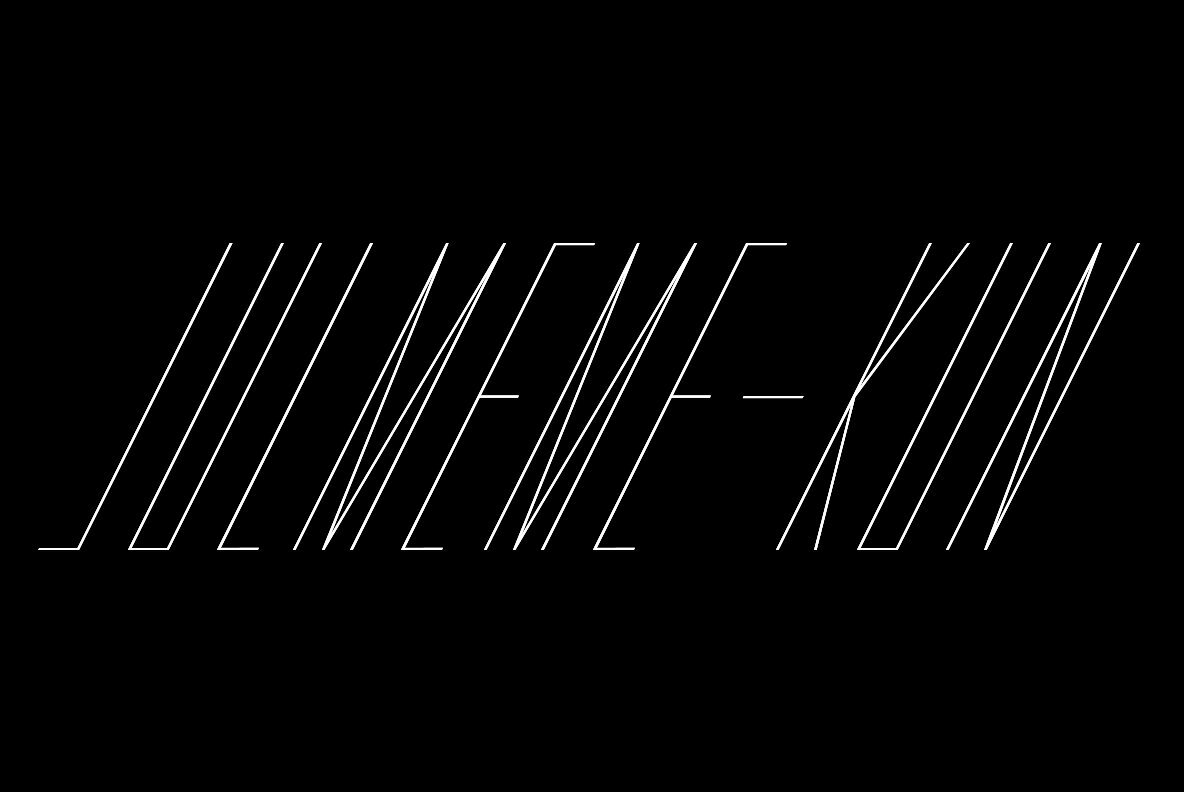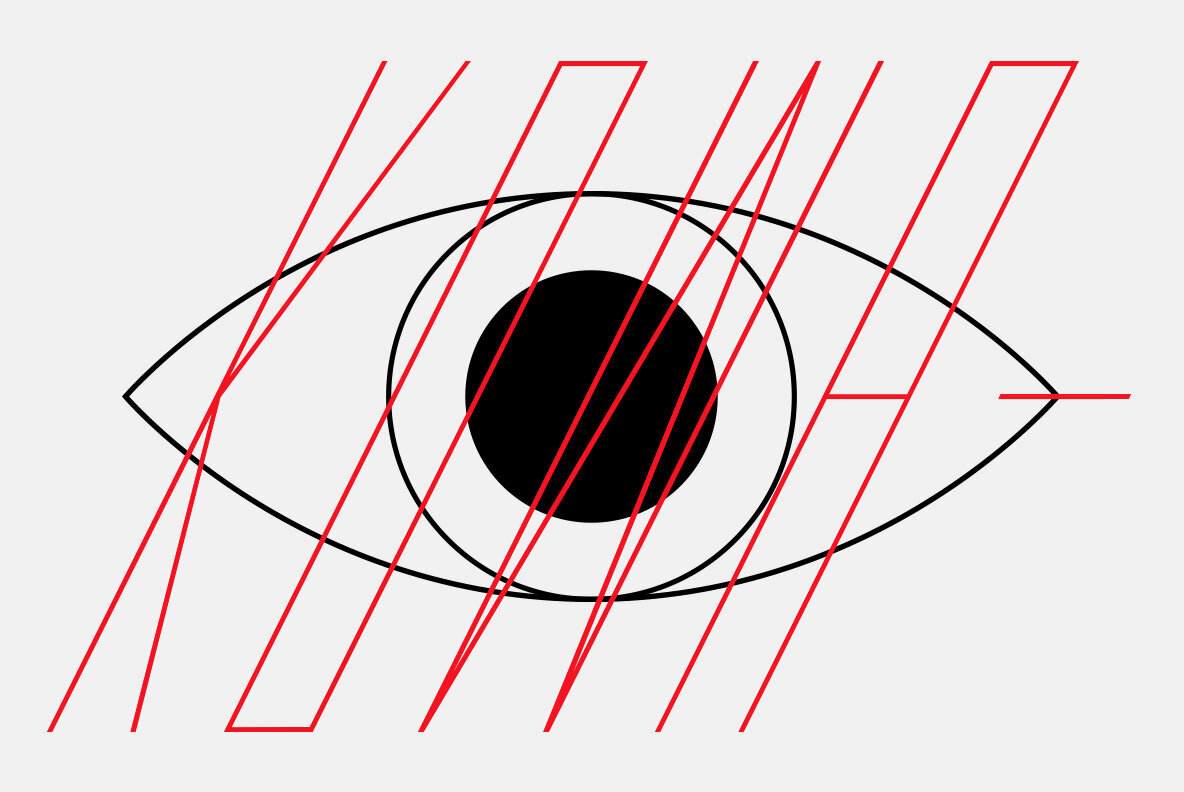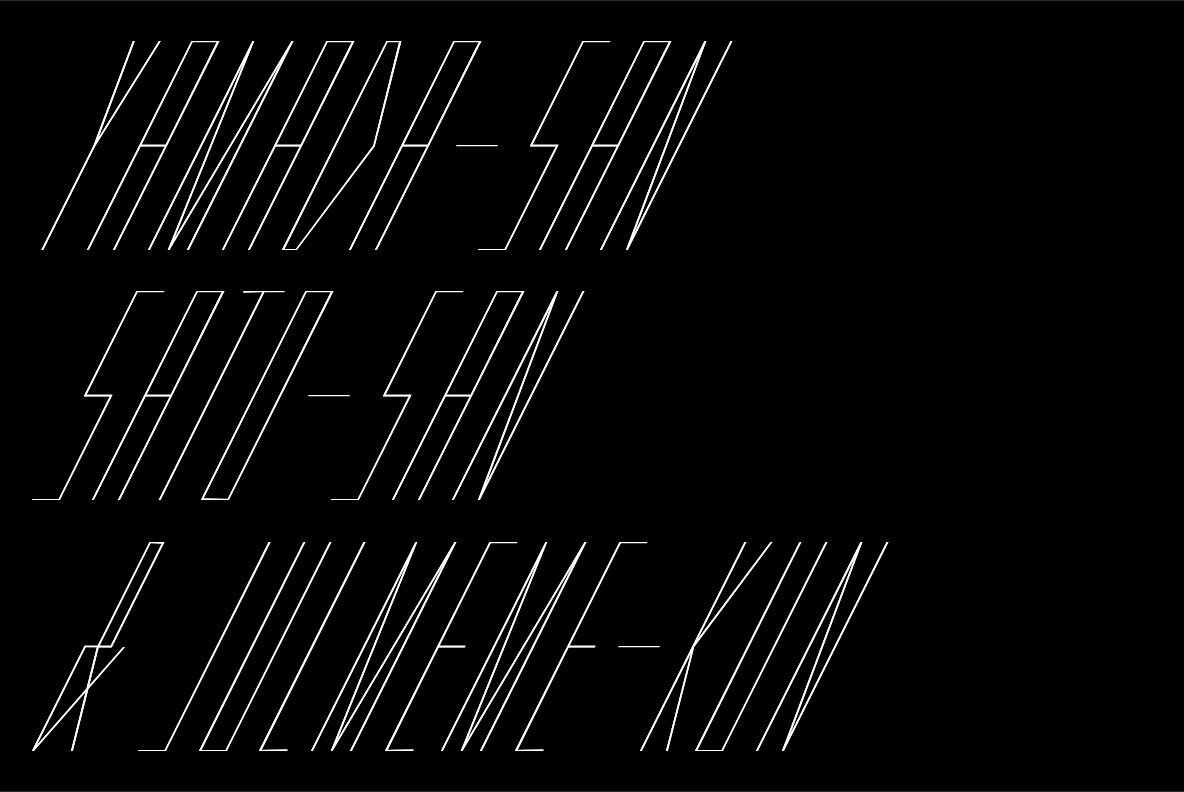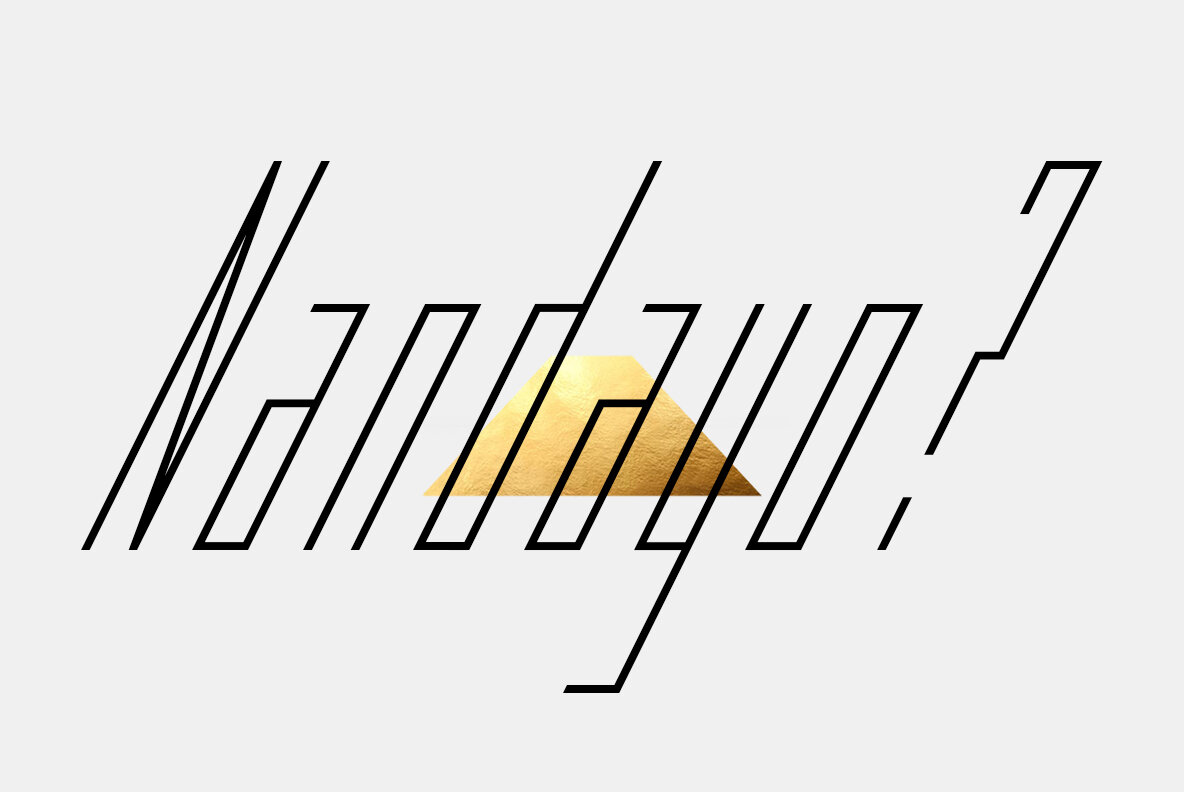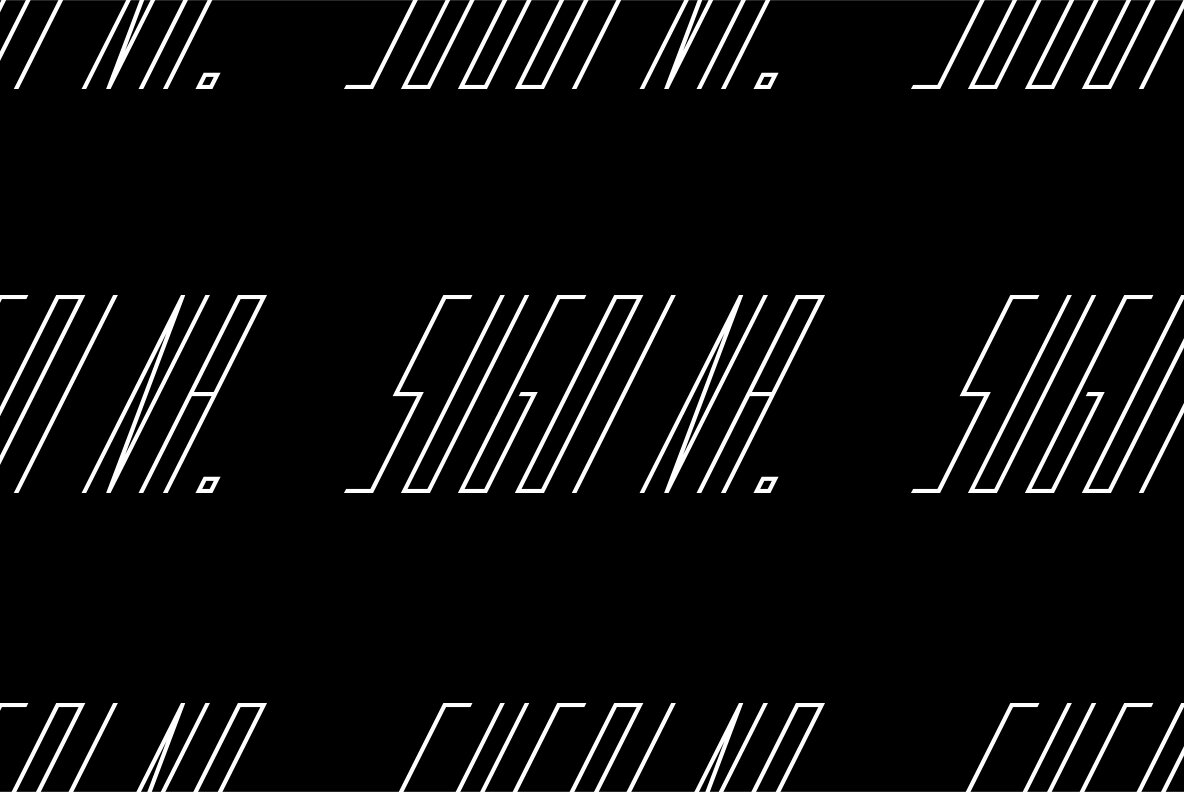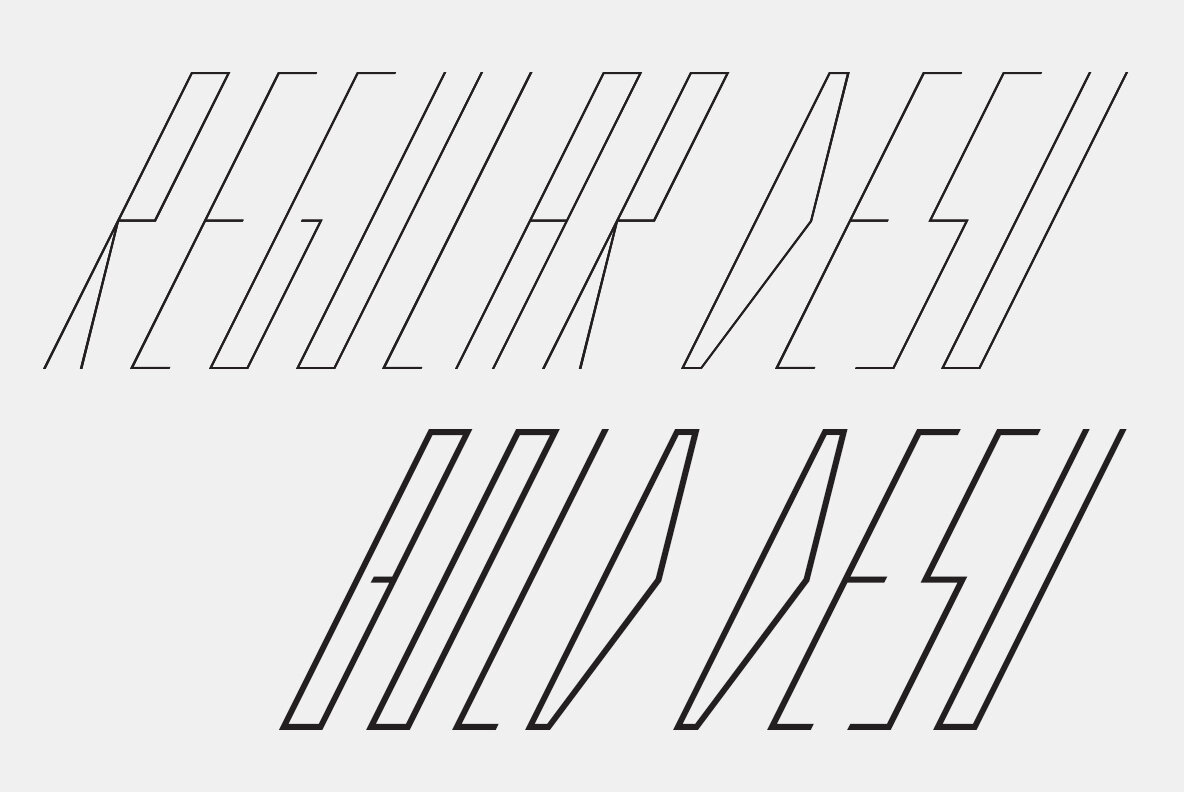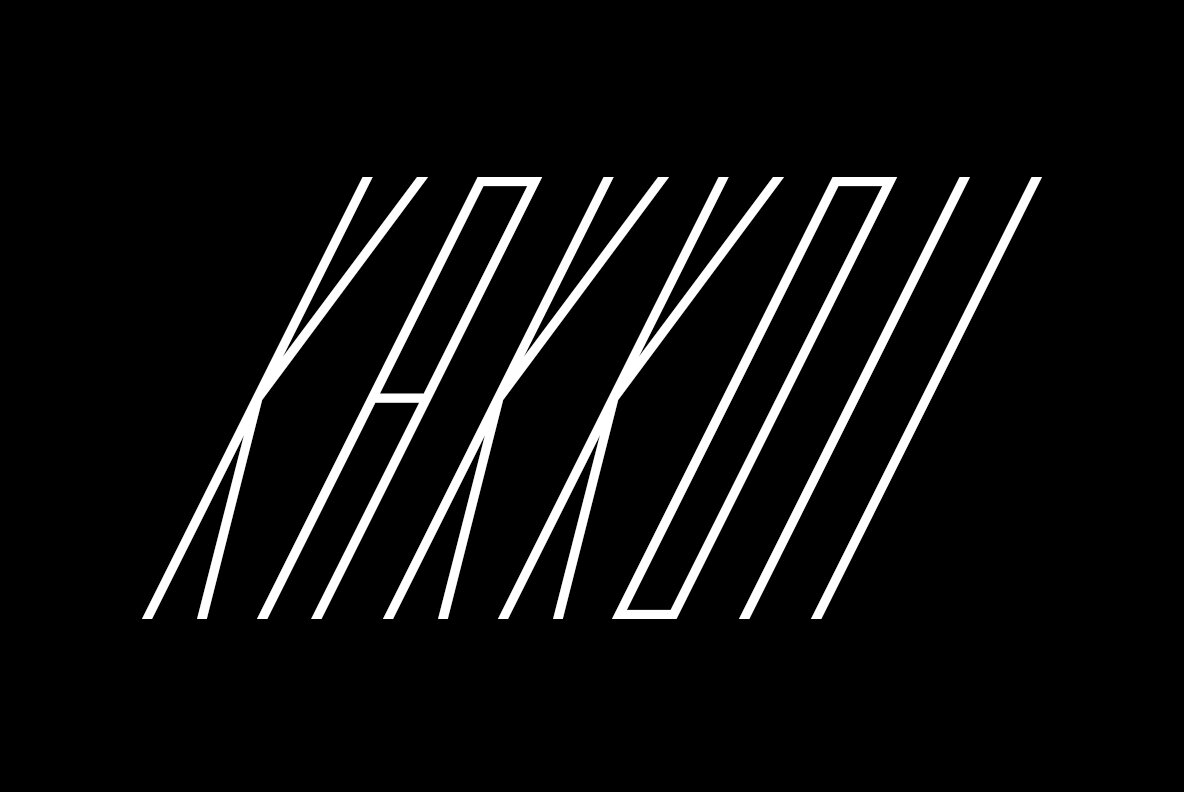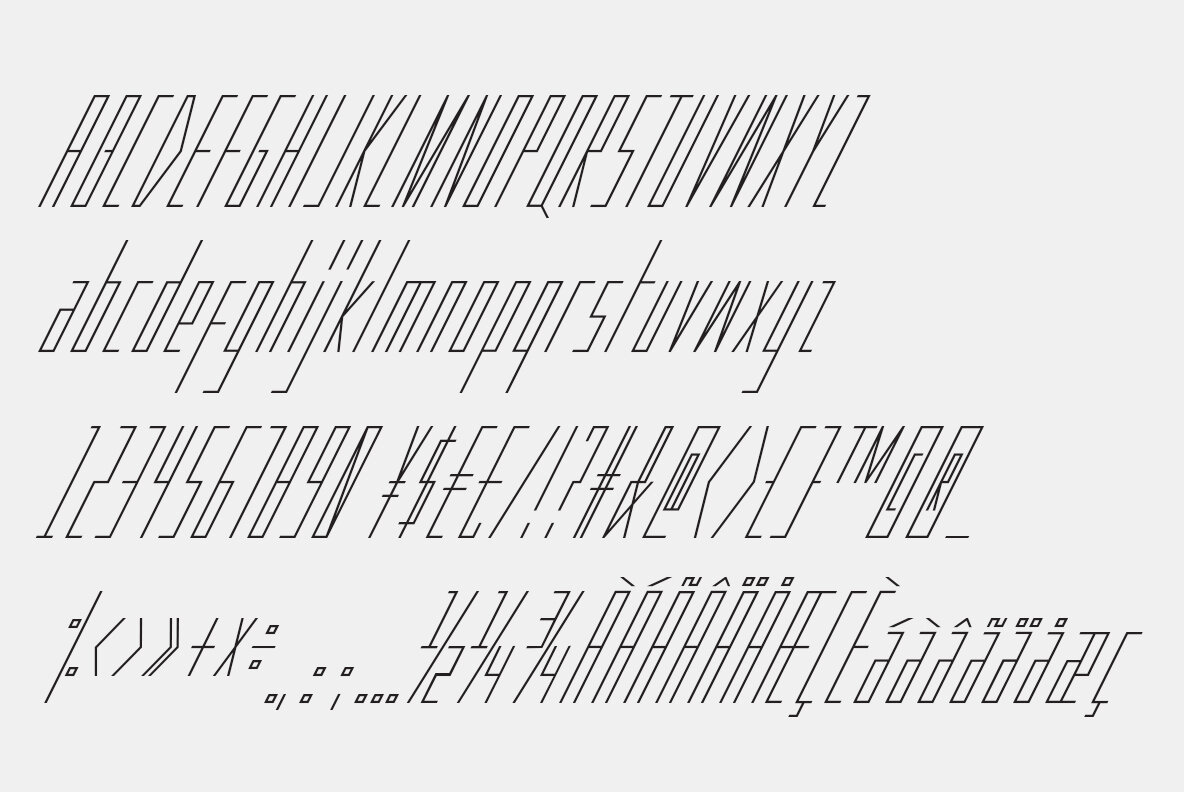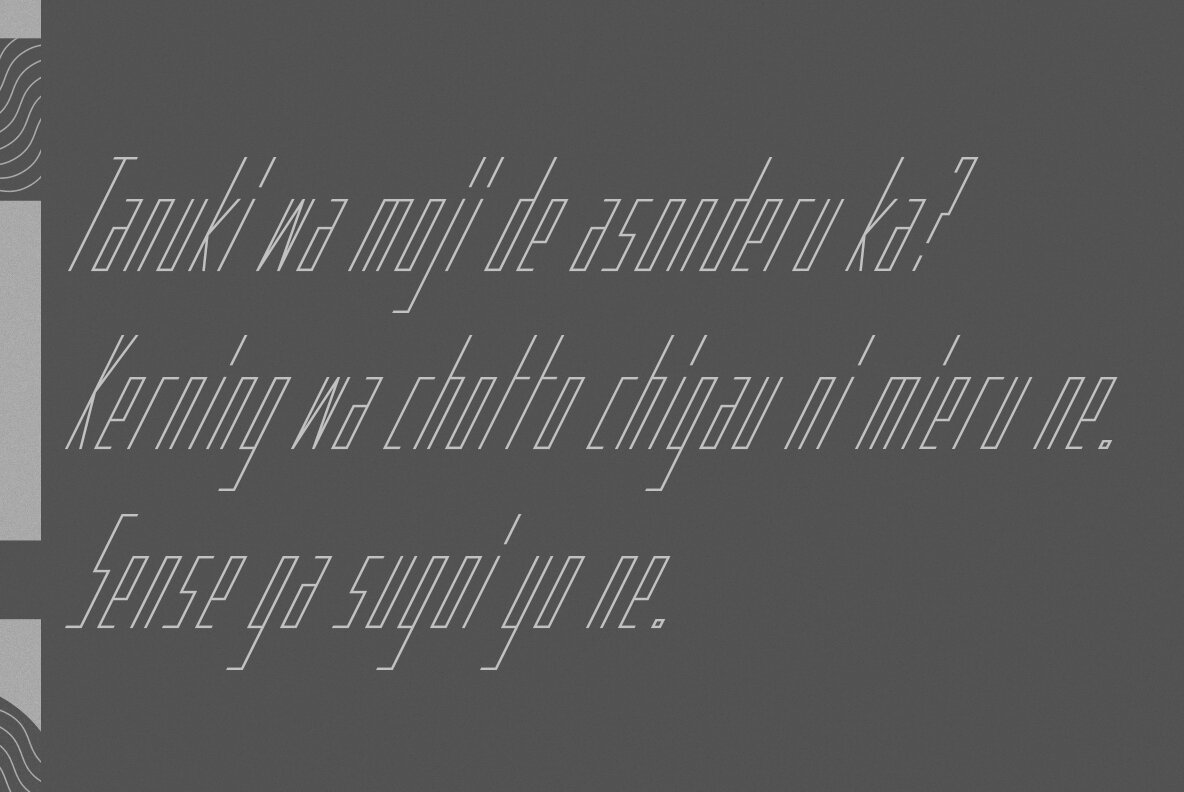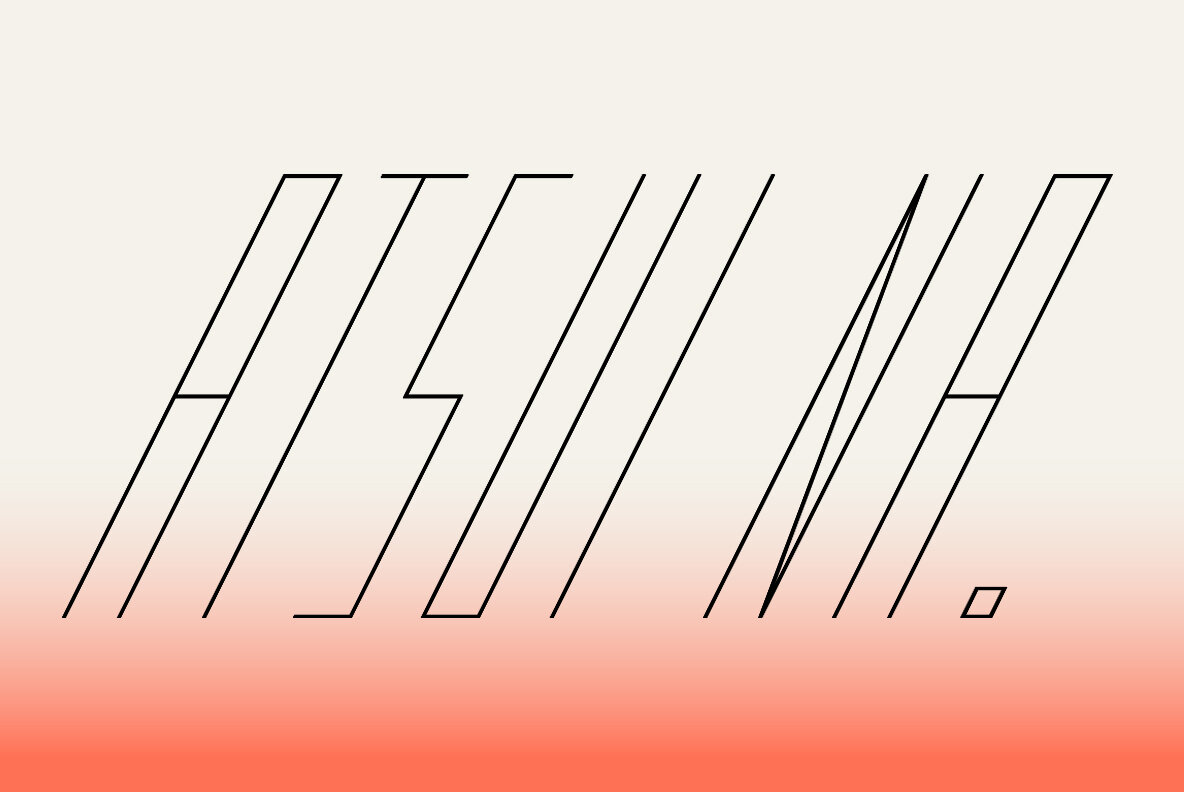
Julmeme-Kun is a fully italic font. This unique characteristic added to its tall and elegant proportions makes it a very dynamic typeface. Applicable for any type of graphic design, especially for posters and logotypes.